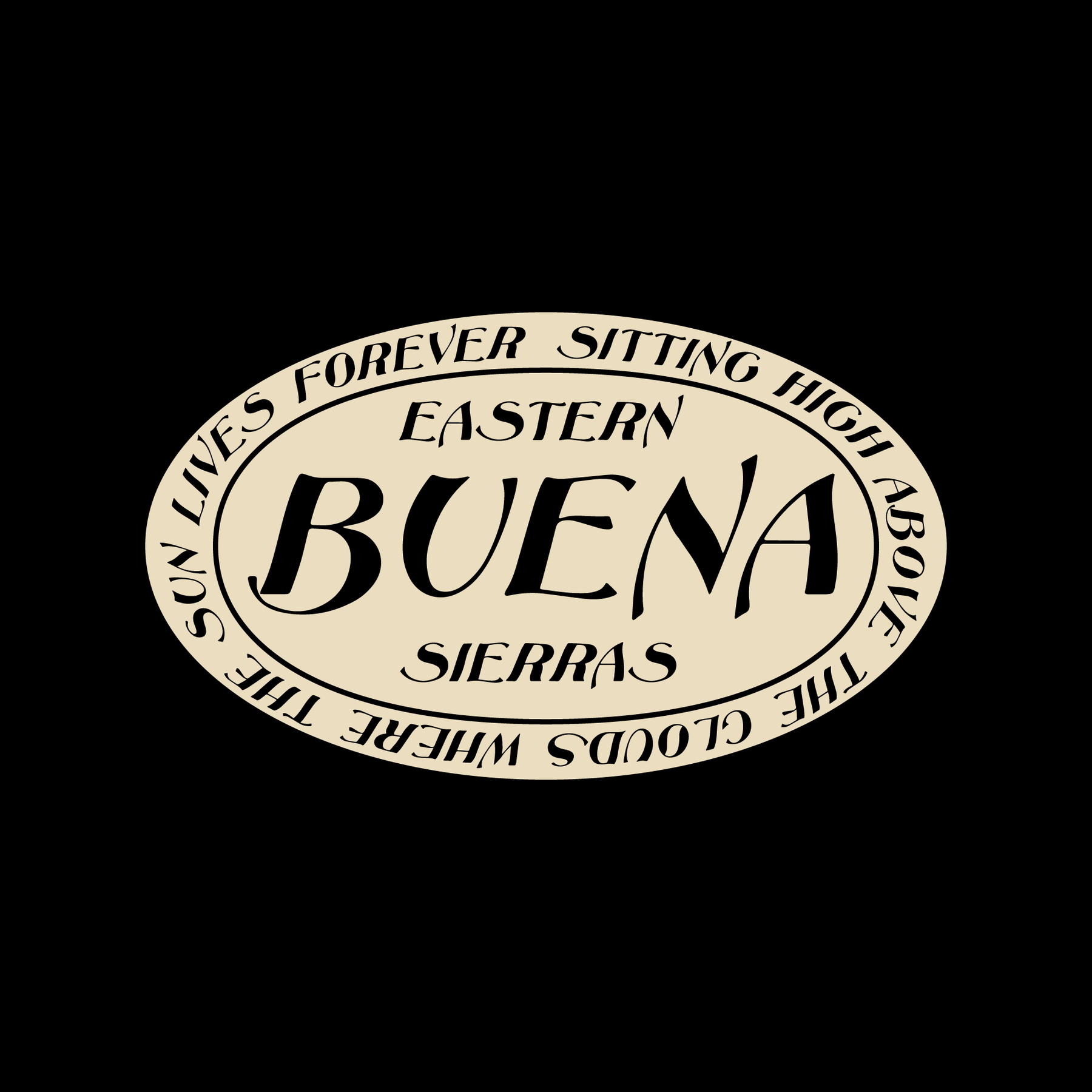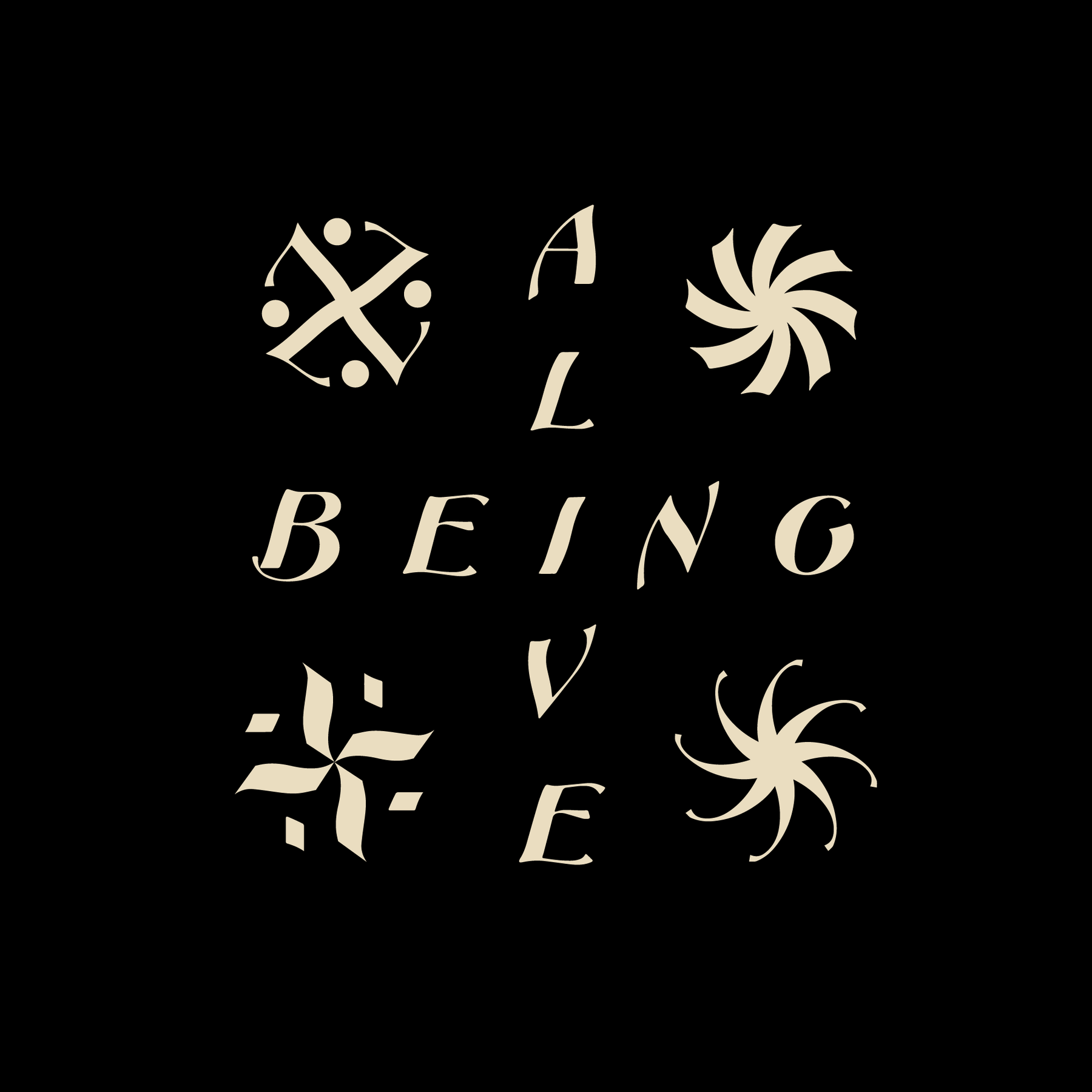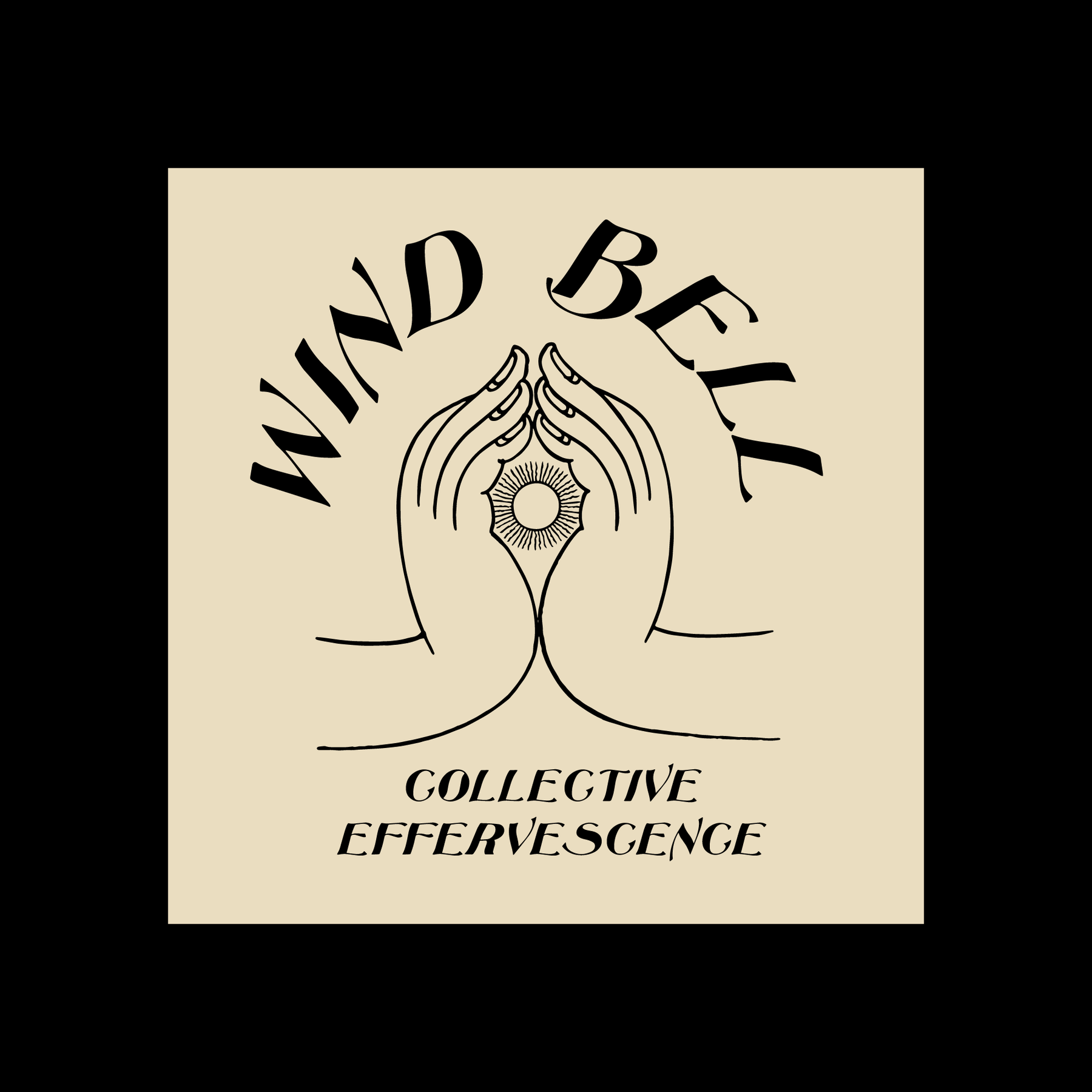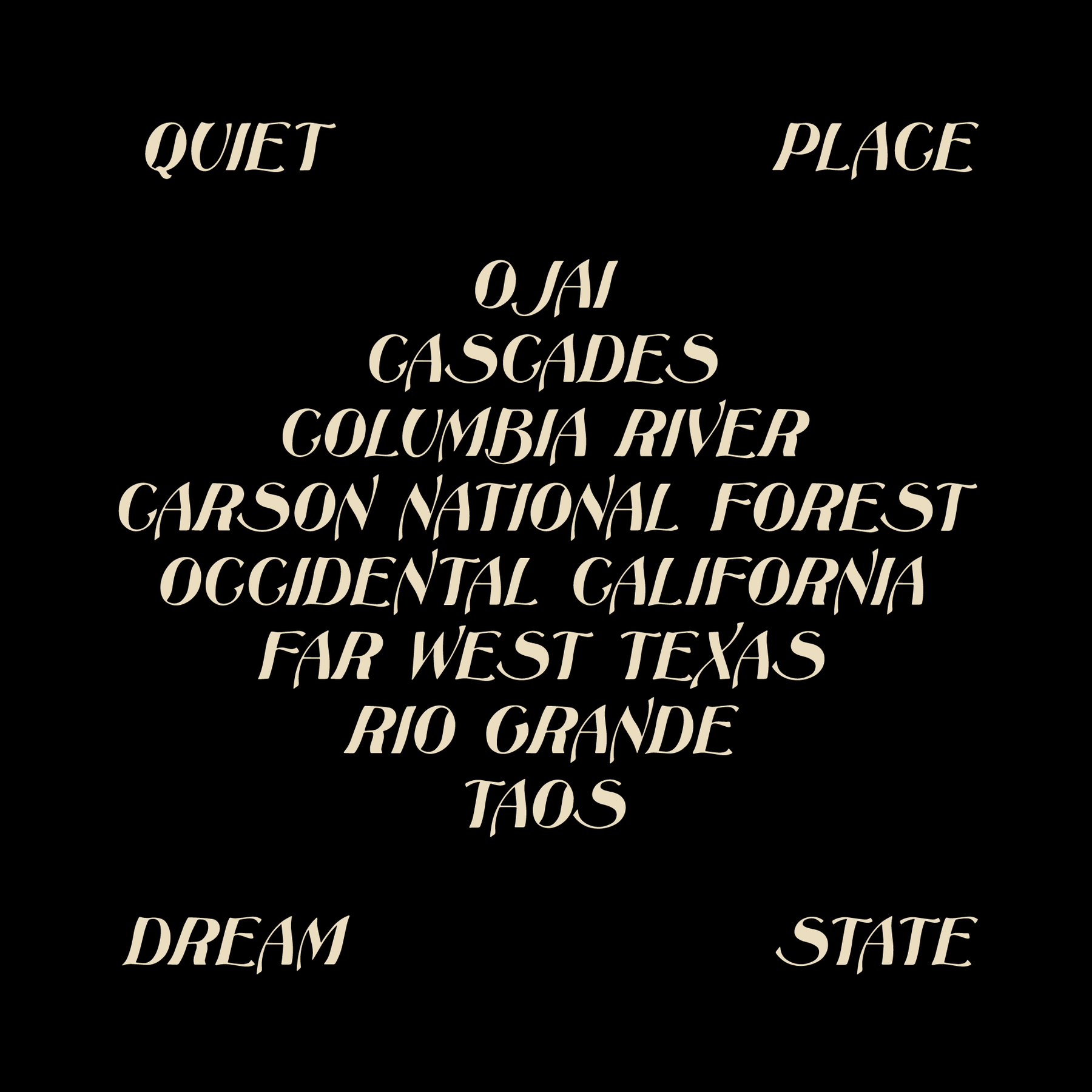
Wind Bell
Inspired by early 20th century European advertising, Wind Bell is born again to haunt the modern design world. It conjures the bygone era of absinthe-soaked nouveau pages, as well as the 1960’s psychedelic experiments. Wind Bell is perfect for any project that needs a twist of warbly, dream-inducing soul.